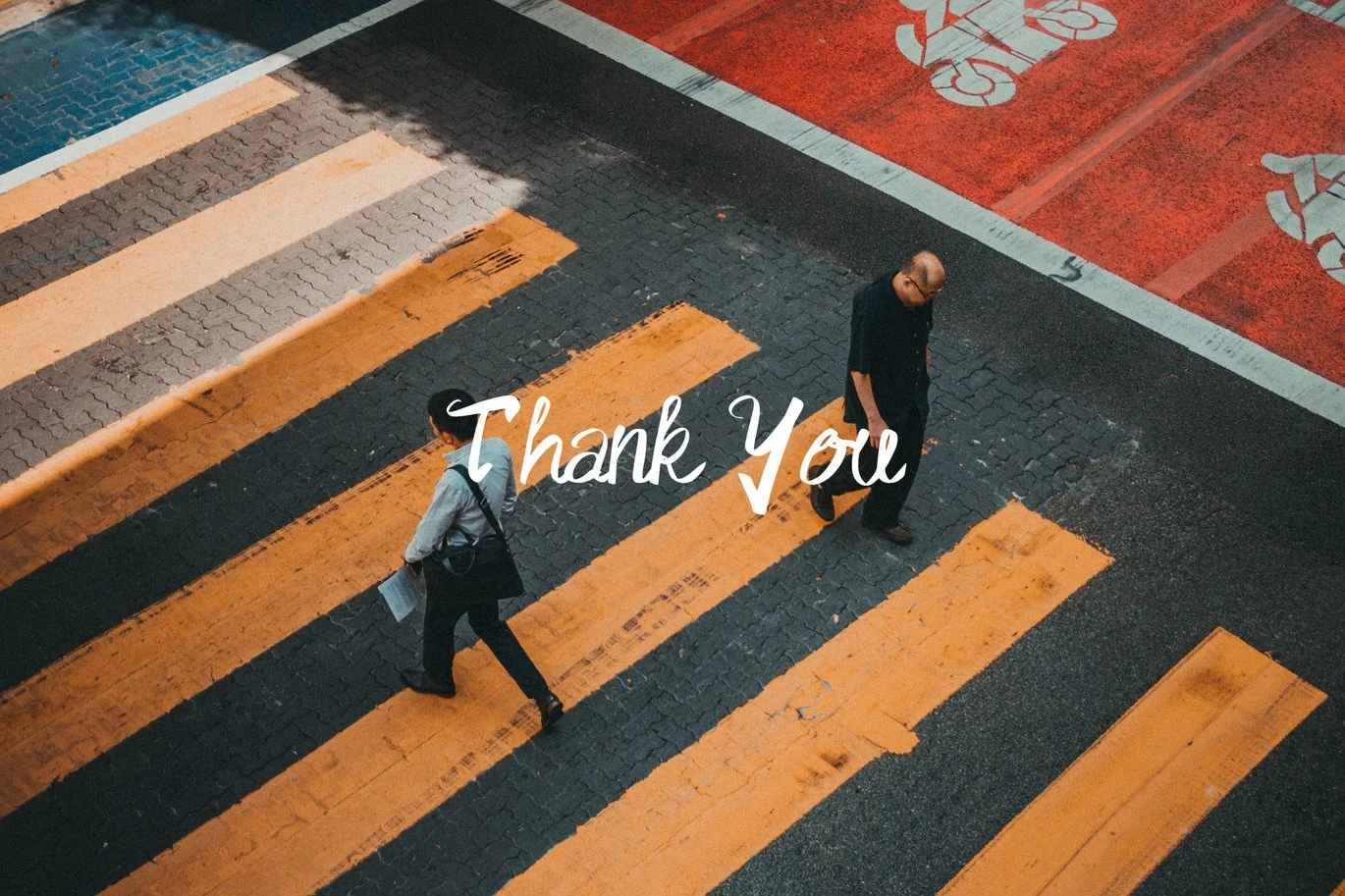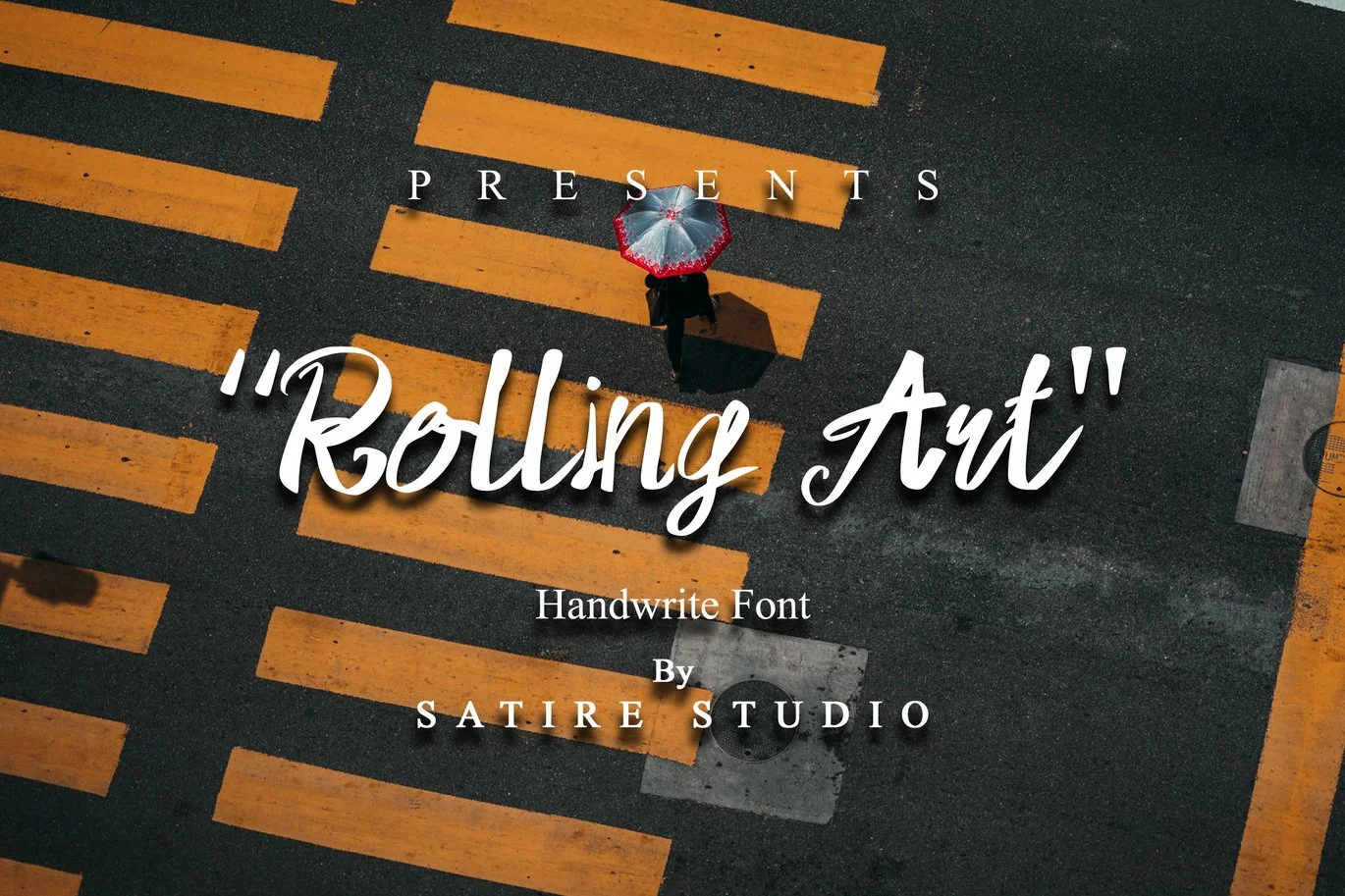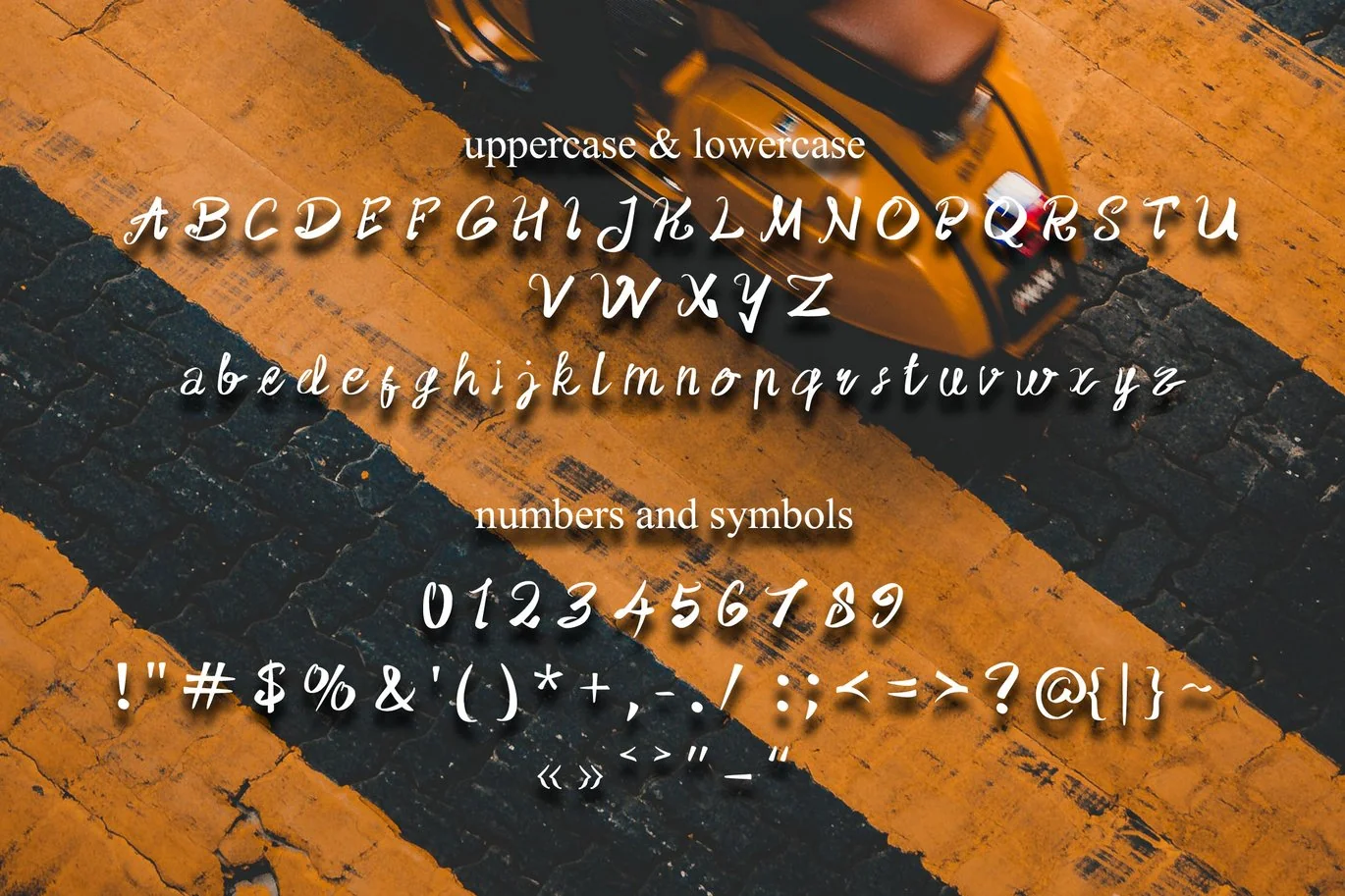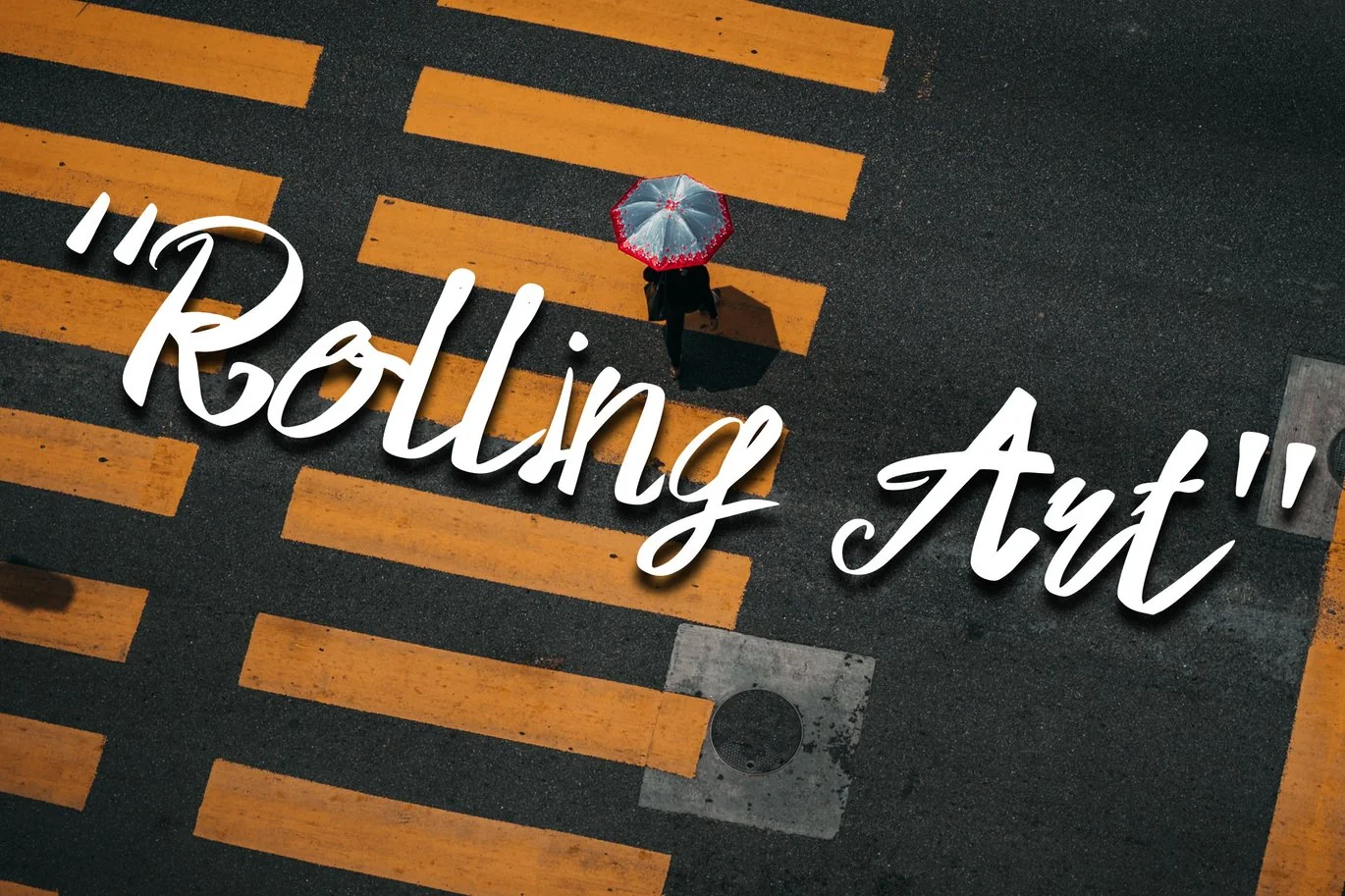
Rolling Art – Handwrite Font
Rolling Art | Decorative Font, So beautiful on invitation like greeting cards, branding materials, business cards, quotes, posters, and more!